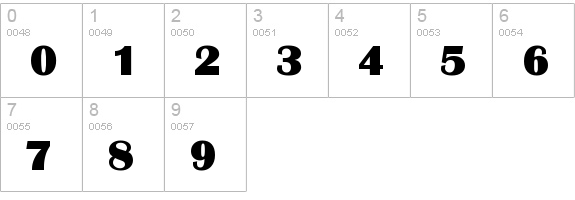
GrenobleSerial-Heavy-Regular Font Details
GrenobleSerial-Heavy-Regular is a heavy, high-impact variant in the GrenobleSerial typeface family \xE2\x80\x94 well suited to high-impact headlines, posters, and display advertising.
GrenobleSerial-Heavy-Regular font is a bold and impactful typeface that exudes strength and modernity. Its sharp lines and sturdy letterforms make it perfect for headlines, posters, and other display purposes. The font's heavy weight commands attention and conveys a sense of authority. What sets GrenobleSerial-Heavy-Regular font apart is not only its striking design but also the fact that it is available for free download at FontsMarket.com. This means that you can easily access this versatile and powerful font without any cost, making it a valuable resource for designers, creatives, and anyone looking to make a bold statement with their typography. Whether you're working on a branding project, a promotional campaign, or simply want to add some visual impact to your designs, GrenobleSerial-Heavy-Regular font is a fantastic choice. Download it for free today and unleash its bold and commanding aesthetic in your next project.